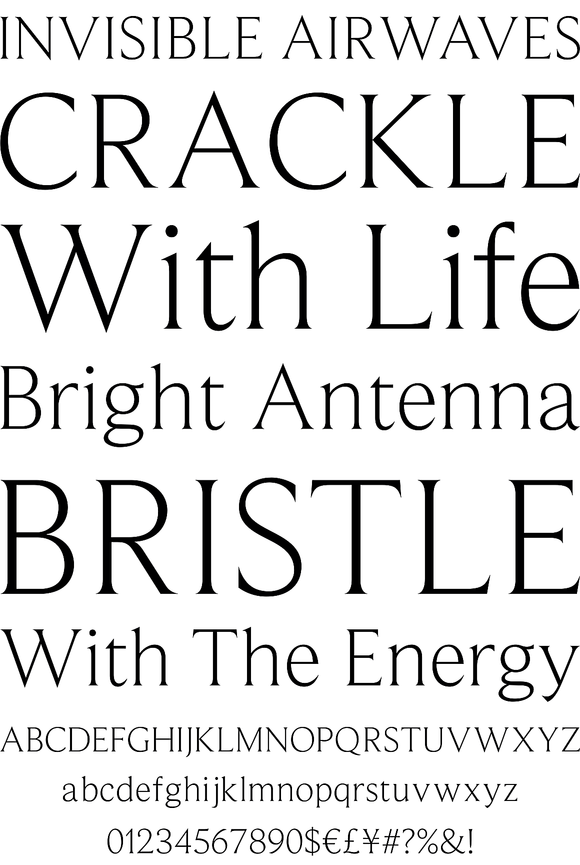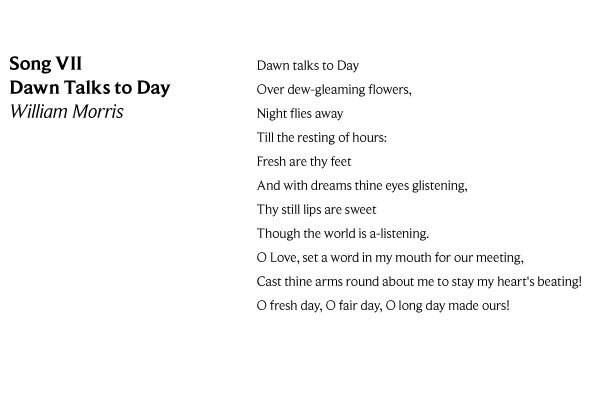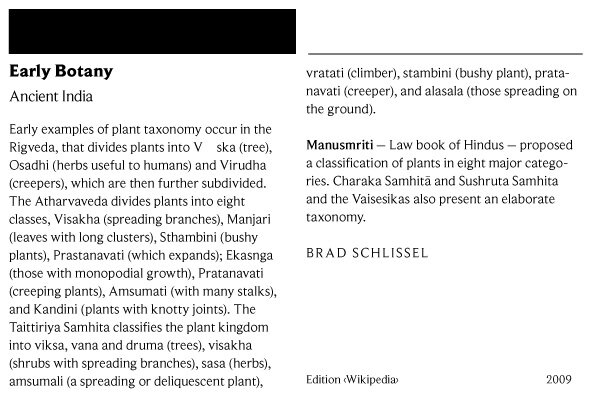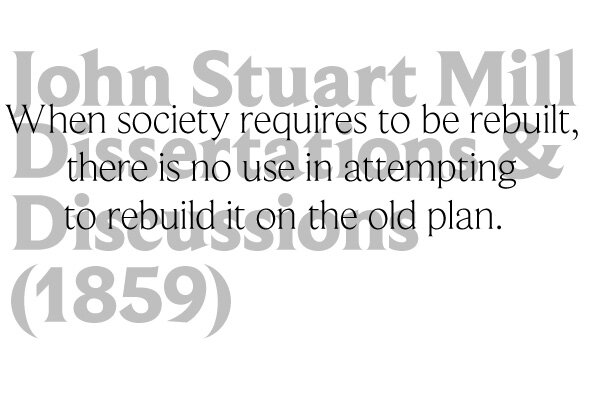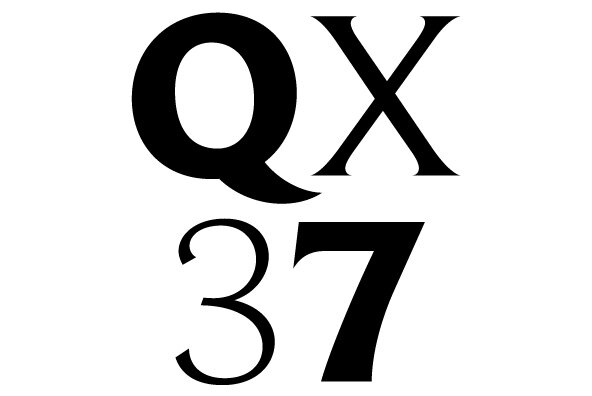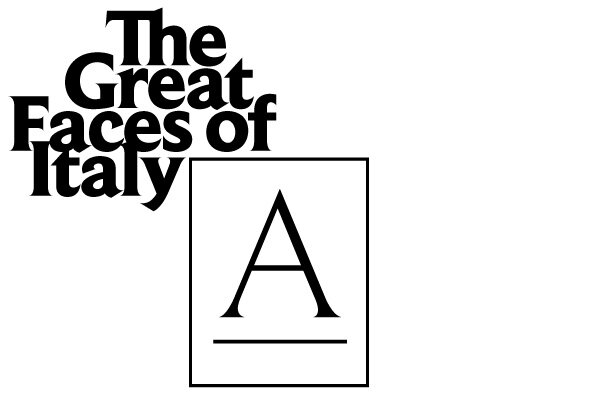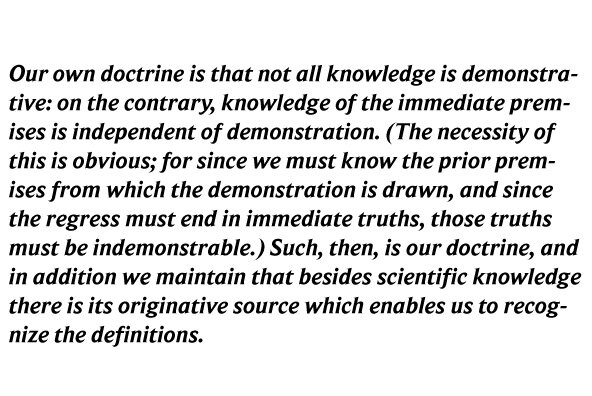
Beaufort
Foundry: Shinntype
This type is almost a sans serif. It has legibility proportions, and a very large, useful family with specially adapted condensed and extended sub-families.
Compared with type set by older technologies, PostScript type, imageset and printed by high-resolution offset lithography, has a remarkable clarity - at any size. While many types, old and new, benefit from this level of definition, few designs specifically exploit it. Beaufort does. Its pointed serifs introduce a sharpness of reproduction that was difficult to achieve, at any size, prior to PostScript. This means that small sizes of Beaufort will combine a high word count with good legibility, while large sizes will always display very fine detail. Optical scaling is not required.
In style, Beaufort has a number of affinities. In particular, the bold romans recall a kind of "grotesque with small serifs" style popular with sign painters and package lettering artists in the early 20th century, and still going strong. In proportion, the basic Beaufort is in the vein of the classic oldstyle types that descend from Granjon, via the French Oldstyles, or Elzevirs, to Plantin and Times in the early twentieth century. Designed for optimum clarity, readibility, and word count, these types have a pronounced angle of stress in the lower case, which is quite large and fairly narrow in relation to the caps. None of the caps are exceptionally narrow, and both cases have an evenness of width that makes for a no-nonsense, orthodox appearance. The strength of the capitals distinguishes these types from those of another optimizing era, the 1970s and 80s, when puny caps made for monotonous text. However, strong though they may be, Beaufort's caps are not as obtrusive in text as those of Times or Plantin.